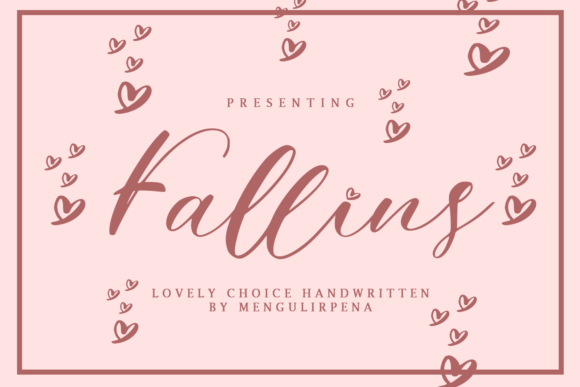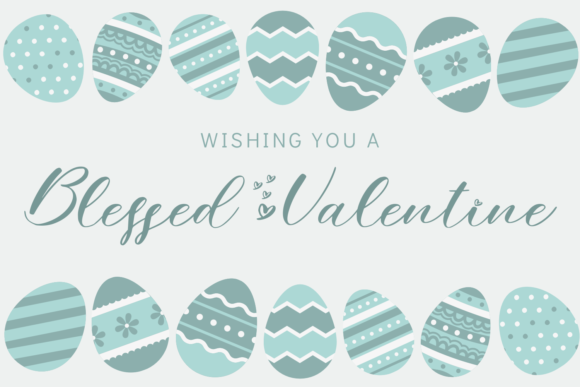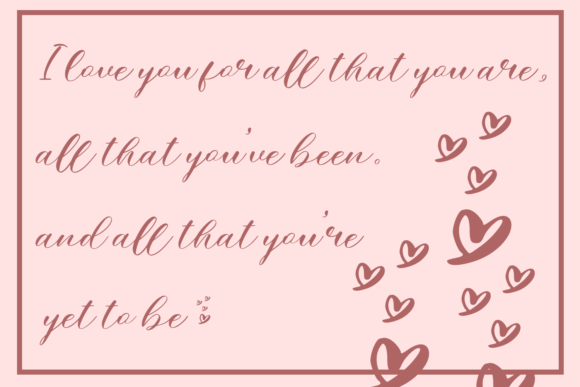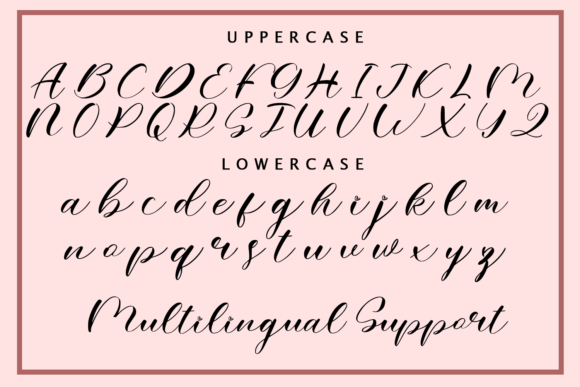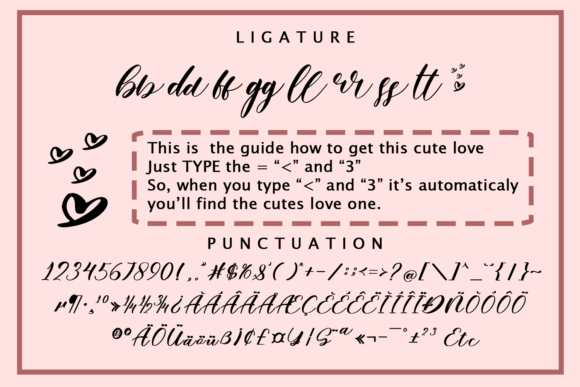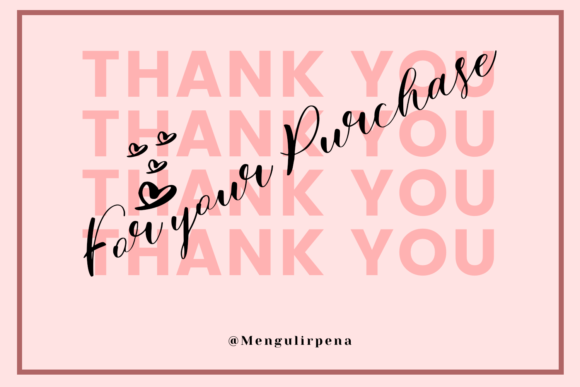
Fallins Font
About Fallins Font
Fallins is a delicate, elegant and flowing handwritten font. It has beautiful and well balanced characters and as a result, it matches a wide pool of designs. Get inspired by its playful romantic charm and notice how it makes them come alive!